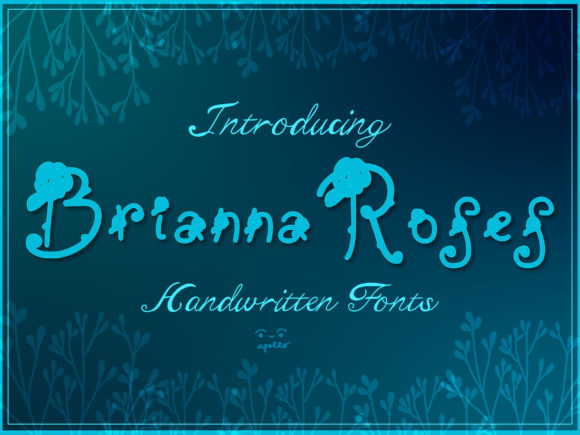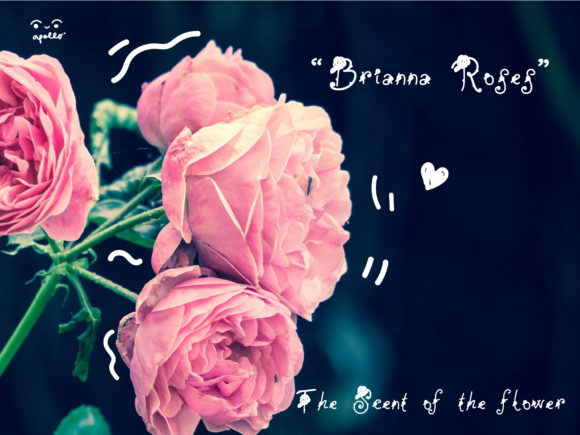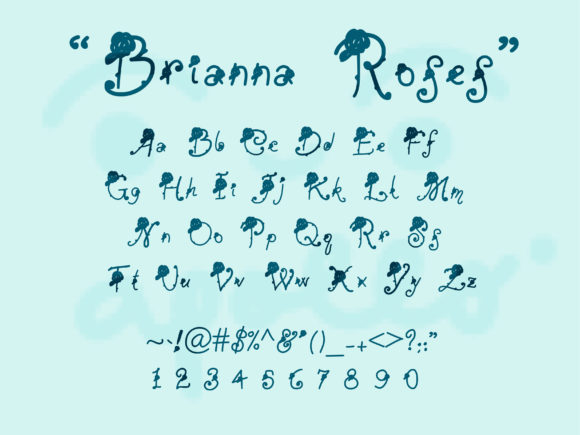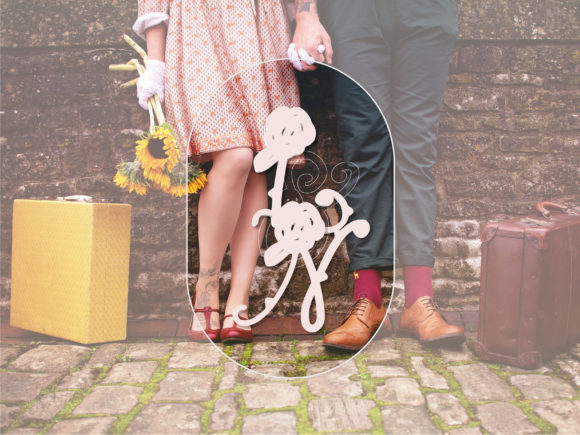
Brianna Roses Font
About Brianna Roses Font
Roses on each character on a font that is font type look luxurious and gorgeous on design. The roses are the signature of the lover couple sign that is the most suitable design for a greeting book also novel or fairy tale. Maybe using letters describing feelings to send that is amazing design.